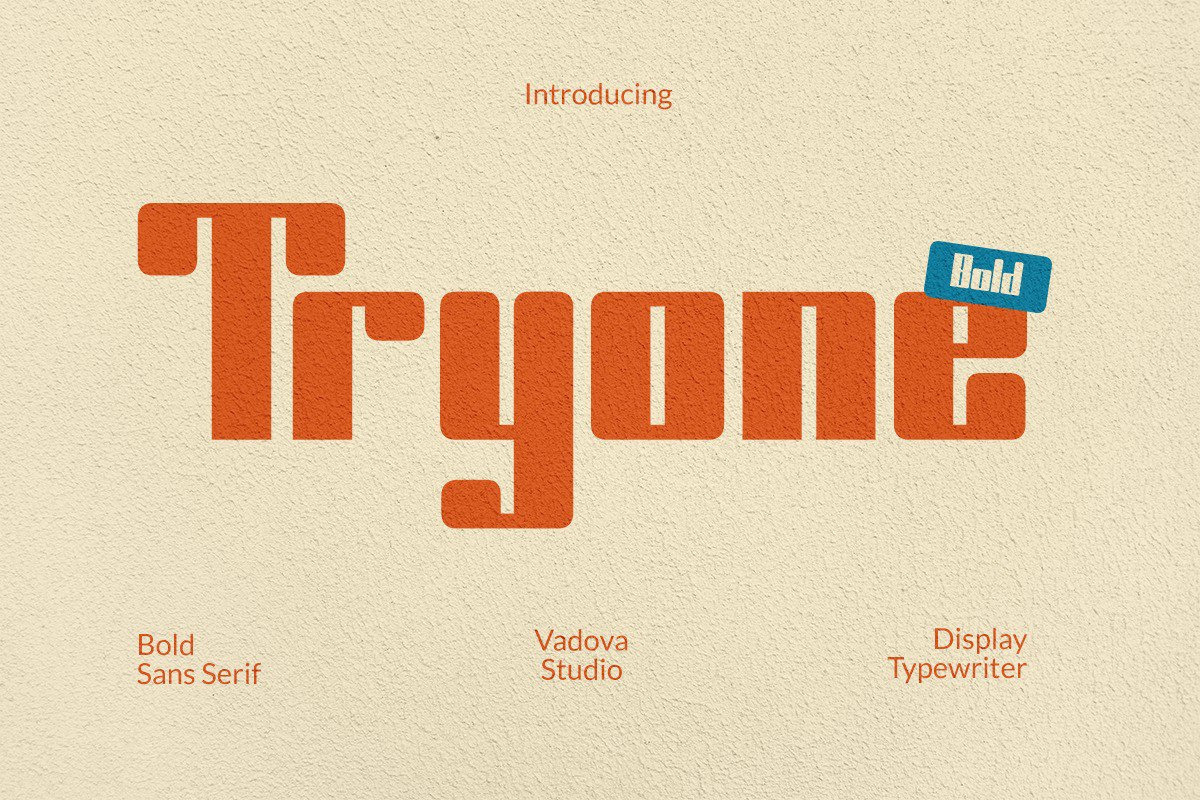
Tryone Bold Sans Serif Font
Tryone is a bold display typewriter-inspired font designed with strong geometric letterforms and a retro editorial character. Its thick strokes, compact proportions, and distinctive shapes create a striking visual presence that works perfectly for bold headlines and impactful typography. The font includes uppercase, lowercase, numbers, and punctuation, giving designers full flexibility for creative layouts.
Tryone is highly relevant for bold visual projects that require strong typographic impact. The retro display style makes it perfect for editorial headlines, vintage posters, branding projects, album covers, and magazine titles. It also works well for creative marketing materials, social media graphics, and bold logo designs where a distinctive and confident typographic style is needed.
- Bold geometric letterforms with a strong retro display presence
- Typewriter-inspired shapes that add a vintage editorial character
- Thick strokes and compact proportions for impactful headlines
- Distinctive squared curves that enhance visual personality
- Balanced spacing for clear readability in large titles and layouts
- Bold editorial headlines and vintage magazine layouts
- Retro poster designs and promotional graphics
- Strong logo designs and distinctive brand titles
- Album covers, music posters, and creative merchandise
- Social media graphics and marketing visuals that need bold typography